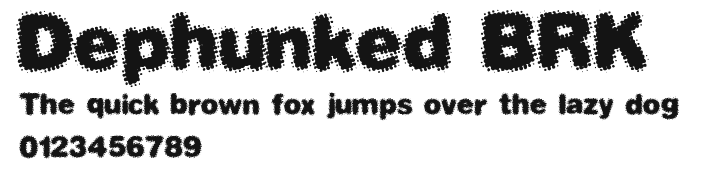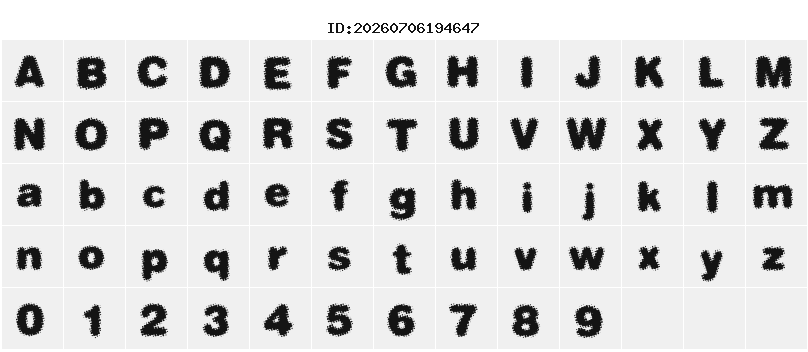
• Font Name: Dephunked BRK
• Designer: ÆNIGMA FONTS - Brian Kent
• Manufacturer: ÆNIGMA FONTS
About Dephunked BRK.ttf
Dephunked BRK.ttf is a modern, elegant sans-serif font designed for ultimate readability and visual harmony. Perfect for branding, headlines, web design, and print materials.